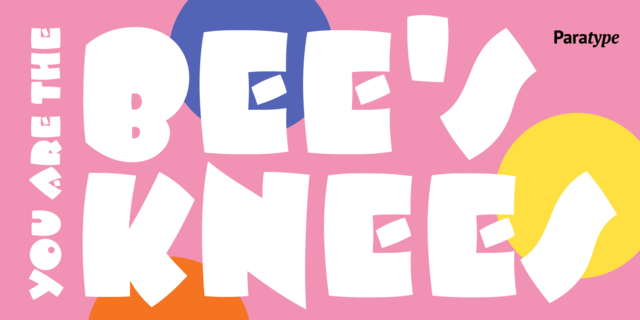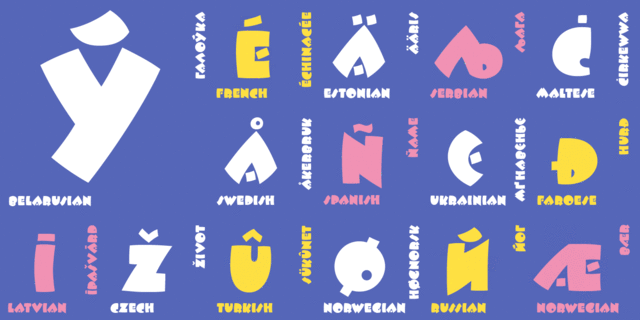
About ITC BeeskneesThe typeface was designed for the International Typeface Corporation in 1990 by David Farey. A very heavy set of sans serif capitals which gives an impression of letters created with a broad brush. Suitable for advertising and display typography. Cyrillic version was developed at ParaType (ParaGraph) in 1994 by Tatiana Lyskova and Elvira Slysh.
Features of font family ITC BeeskneesThe hit of the decade:
Associations for font family ITC BeeskneesTypeface personality and character:
bright, strong, black, close-fitting, powerful, loud, distinctive, dynamic, expressive, funny, ironic, healthy, idle, walking, spoiled, generous, party, cool, alive, informal, splashy, cheerful, provocative, glad, playful, agile, original, notable, children, cartoonish, witty, happy, festive, creative, heavy, naughty, summer, hot, artistic, mischievous, restless, naive, madcap, voracious, active, southern, yelling, vernacular, friendly, good-natured, kind, affable, ripe, delicious, cute, home, lush, benevolent, smooth, family, smiling, appetizing, sweet
game, adventures, fast food, shop, toy, entertainment, party, advertising, zoo, cafe, children's book, humor, animation, breakfast, food, snack, coloring, recreation, circus, Cartoon, holiday, pizza, animals, souvenir, attraction, aquadiskotheque, graphics, illustration, bun, dessert, sweets, confectionery, soft toy, family, paints, paint, school, camp, baby food, clown, pet shop, kindergarten, matinee, juice, cake, show, TV, ice cream, diaper, cheese, house, morning, little Typeface associated with age: